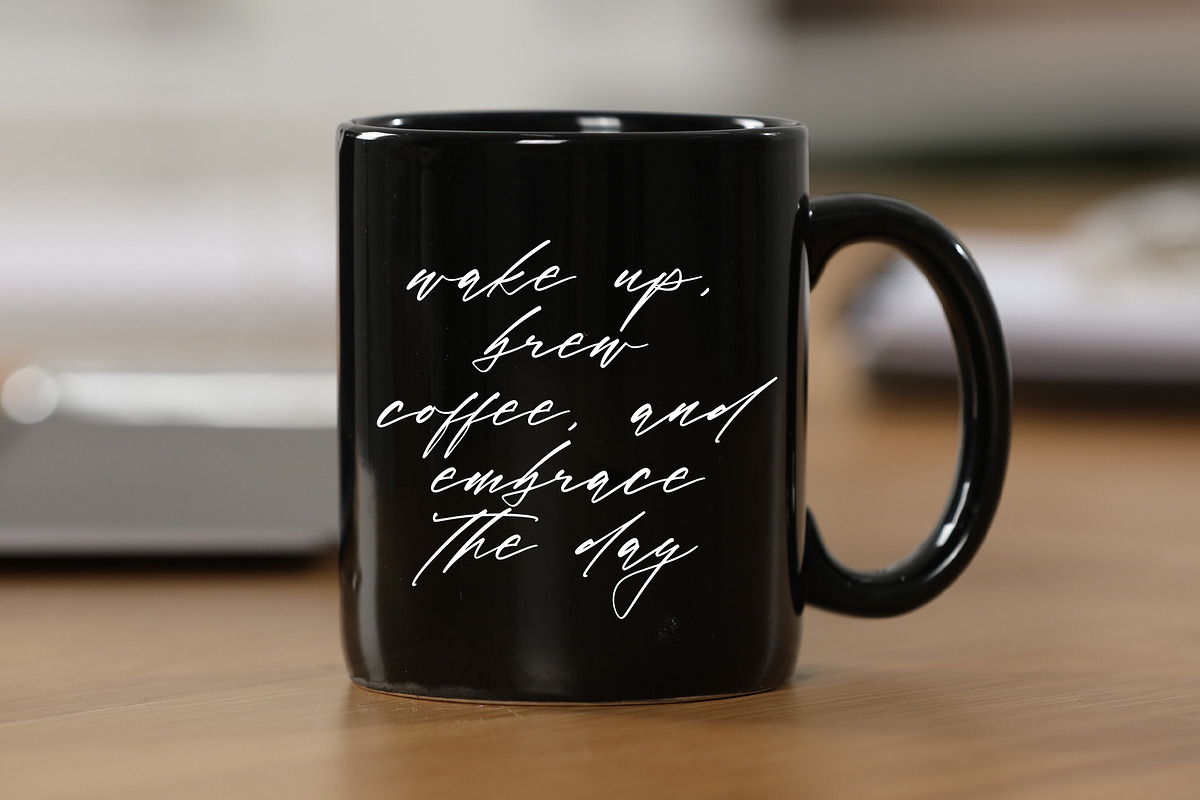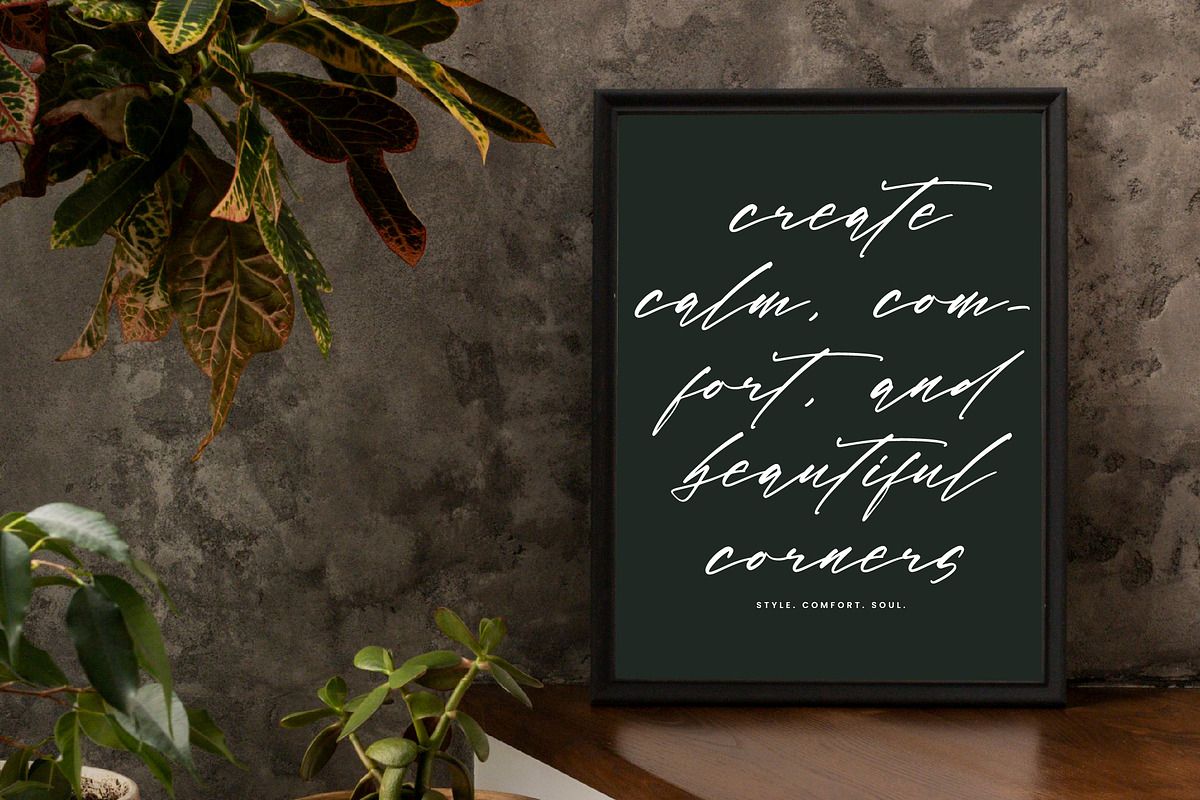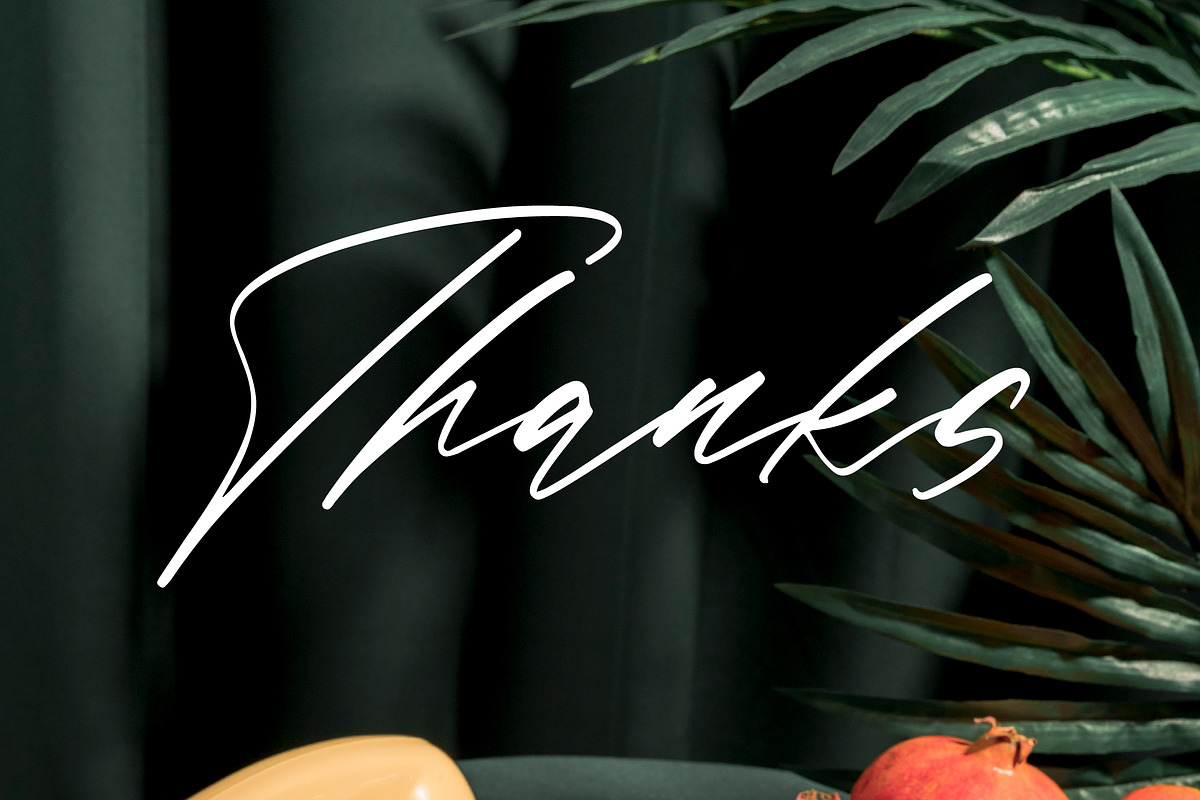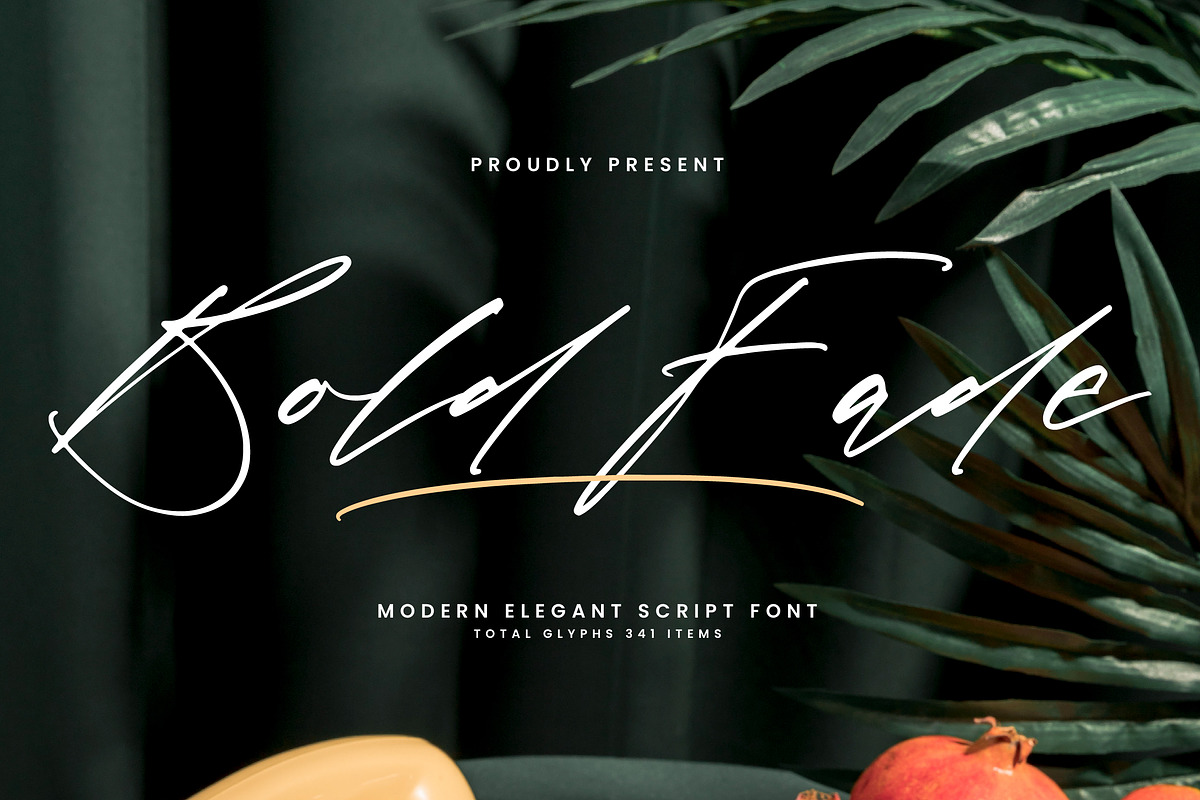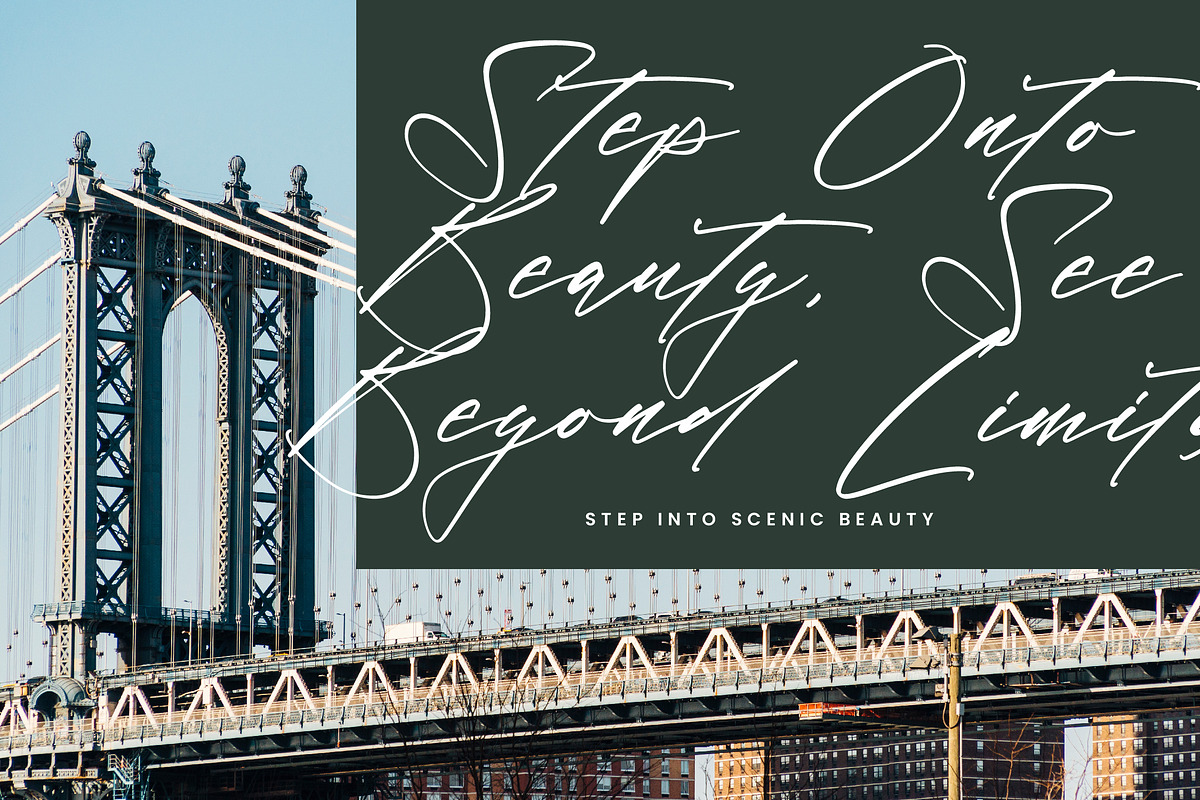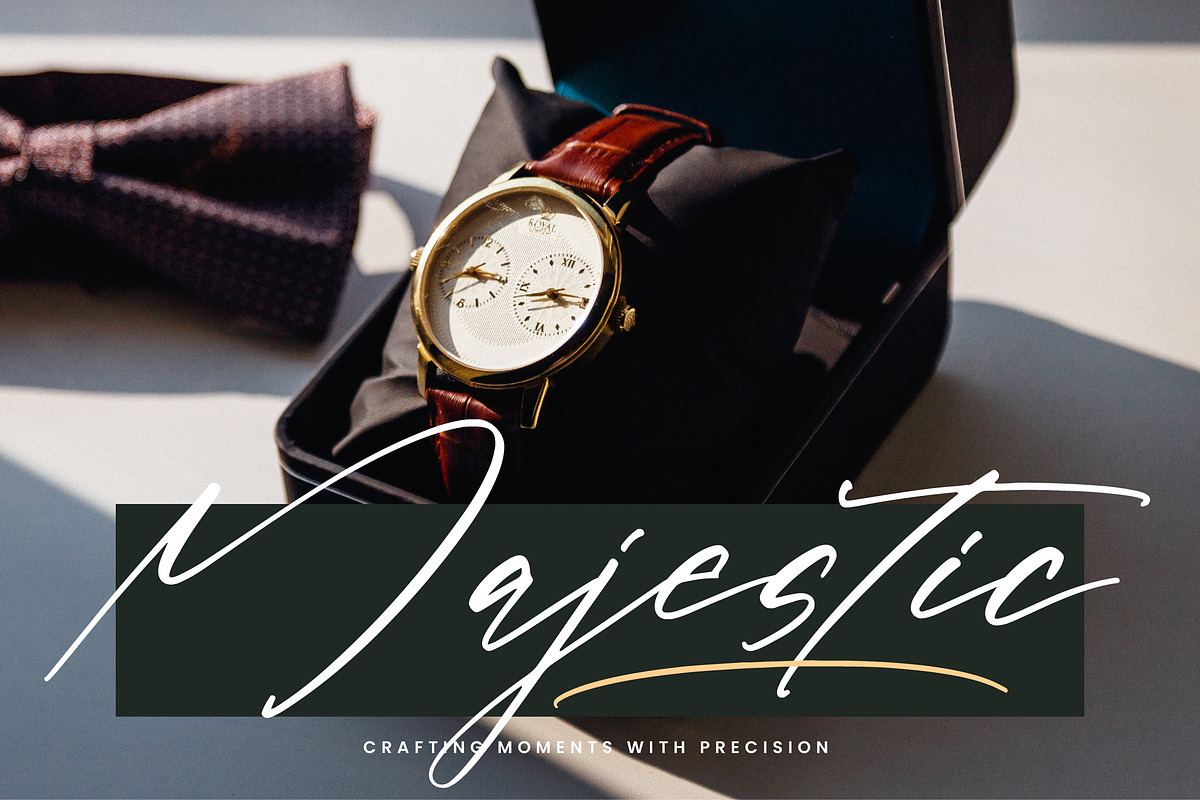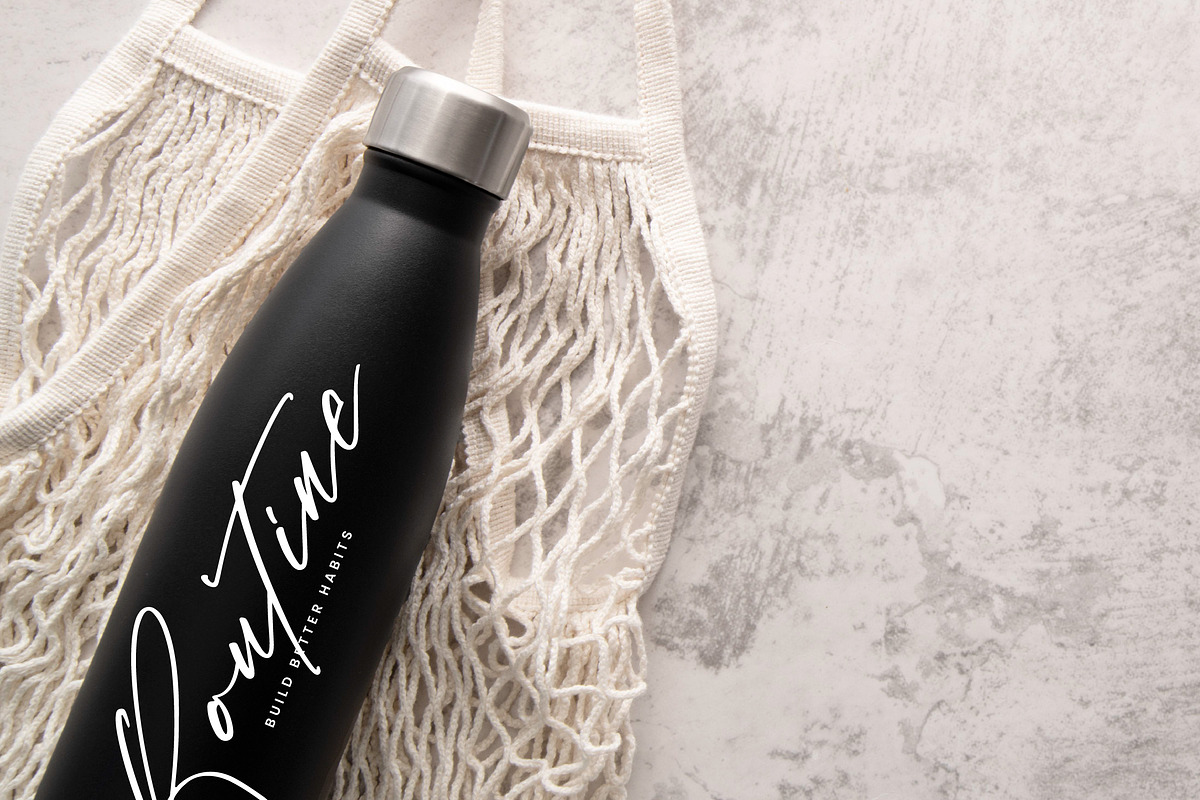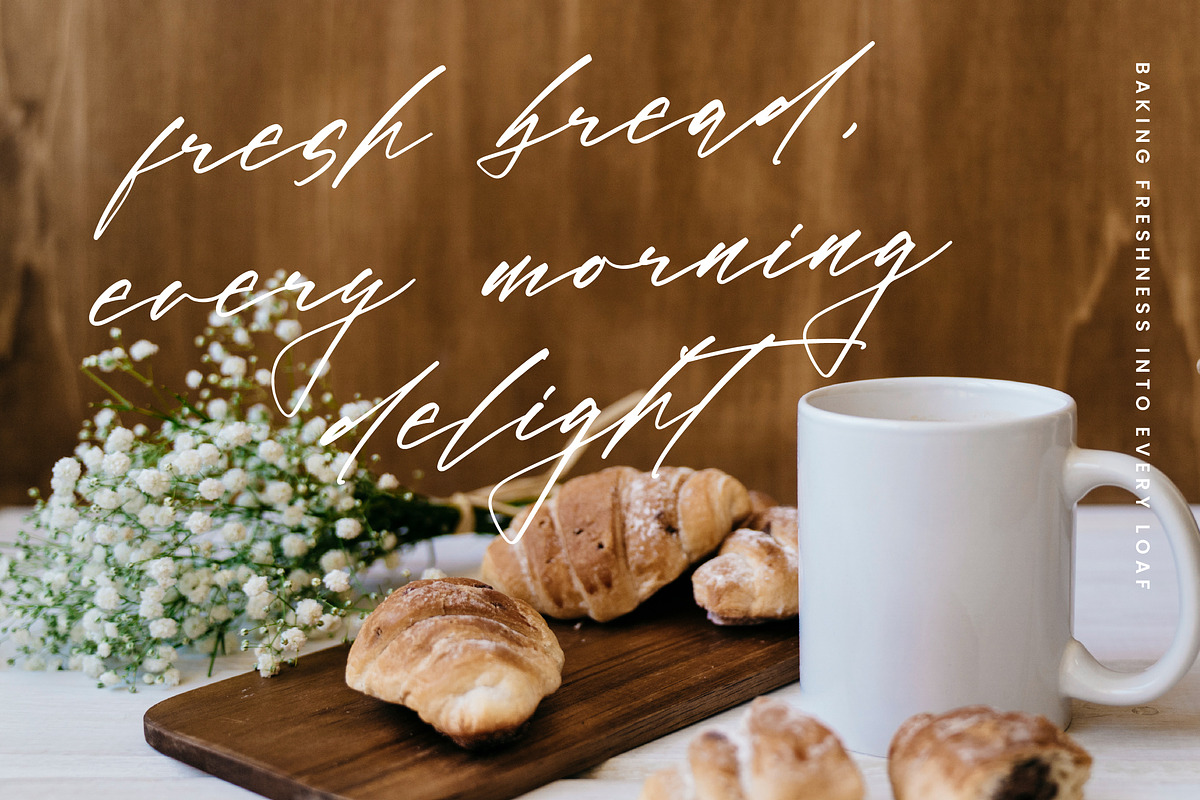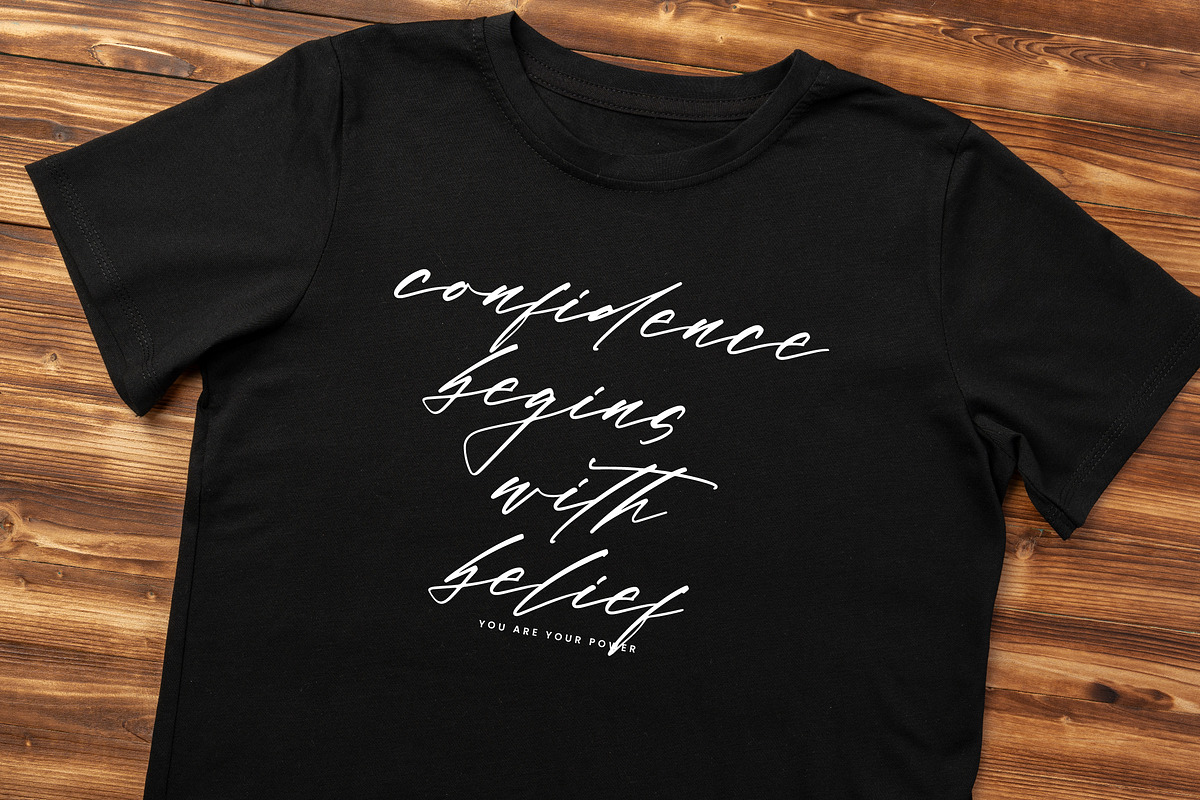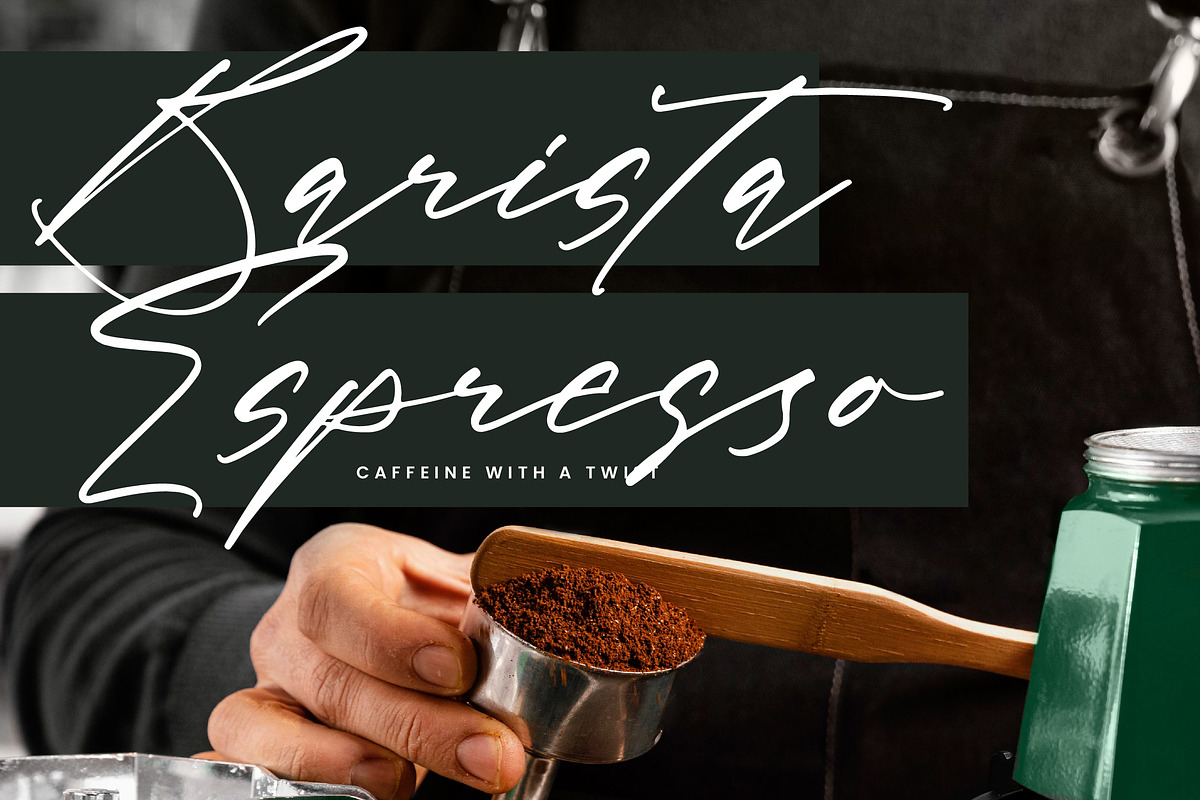
Bold Fade
Bold Fade - Modern Elegant Script Font, from Integritype Studio, perfect for any project like: logos, branding projects, homewares designs, product packaging, mugs, quotes, posters, shopping bags, t-shirts, covers books, business cards, invitation cards, greeting cards, labels, photography, watermarks, special events and all your other luxury projects that require a premium taste.
Ligatures, Alternate & Swashes